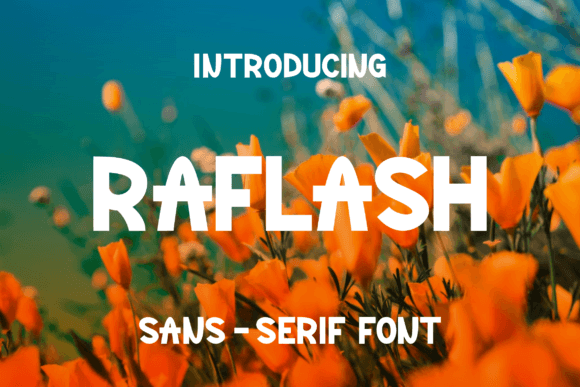
In a world saturated with monotonous fonts, Raflash emerges as a radiant beacon of creativity, a sans serif font that captivates hearts with its beauty, class, elegance, and modernity. Its meticulously crafted characters dance across the screen, leaving a trail of sophistication and allure.
With Raflash, your words transform into exquisite art, each letter a brushstroke in a masterpiece of typography. Its clean lines and refined curves create a visual symphony that elevates designs to new heights. Whether you're crafting a timeless cover letter, designing an unforgettable logo, or creating eye-catching magazine headers, Raflash is your perfect companion.
Step into a world of endless possibilities with Raflash. Its versatility knows no bounds, adapting effortlessly to a kaleidoscope of projects, from branding and packaging to stationery and websites. Let your imagination run wild as you explore the countless ways to showcase Raflash's versatility.
Experience the transformative power of Raflash, a font that breathes life into your creative endeavors. Its timeless beauty transcends trends, ensuring that your designs remain relevant and captivating for years to come. Invest in excellence and unlock a font that will elevate your work to new levels of brilliance.